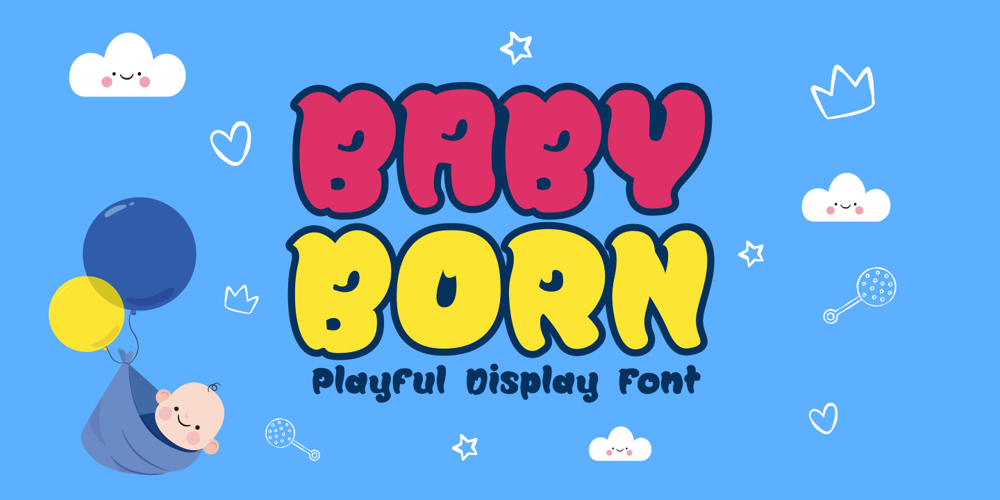
Baby Born Font Family was designed by Nur Faidin and published by Nurf Designs. Baby Born contains 1 styles and family package options. Baby Born is a playful and childish display font. It is suitable for greeting card, birthday invitation, labels, packaging, t-shirt designs, logotypes and much more. Baby Born comes with uppercase, lowercase, numerals, punctuations & multilingual support characters.